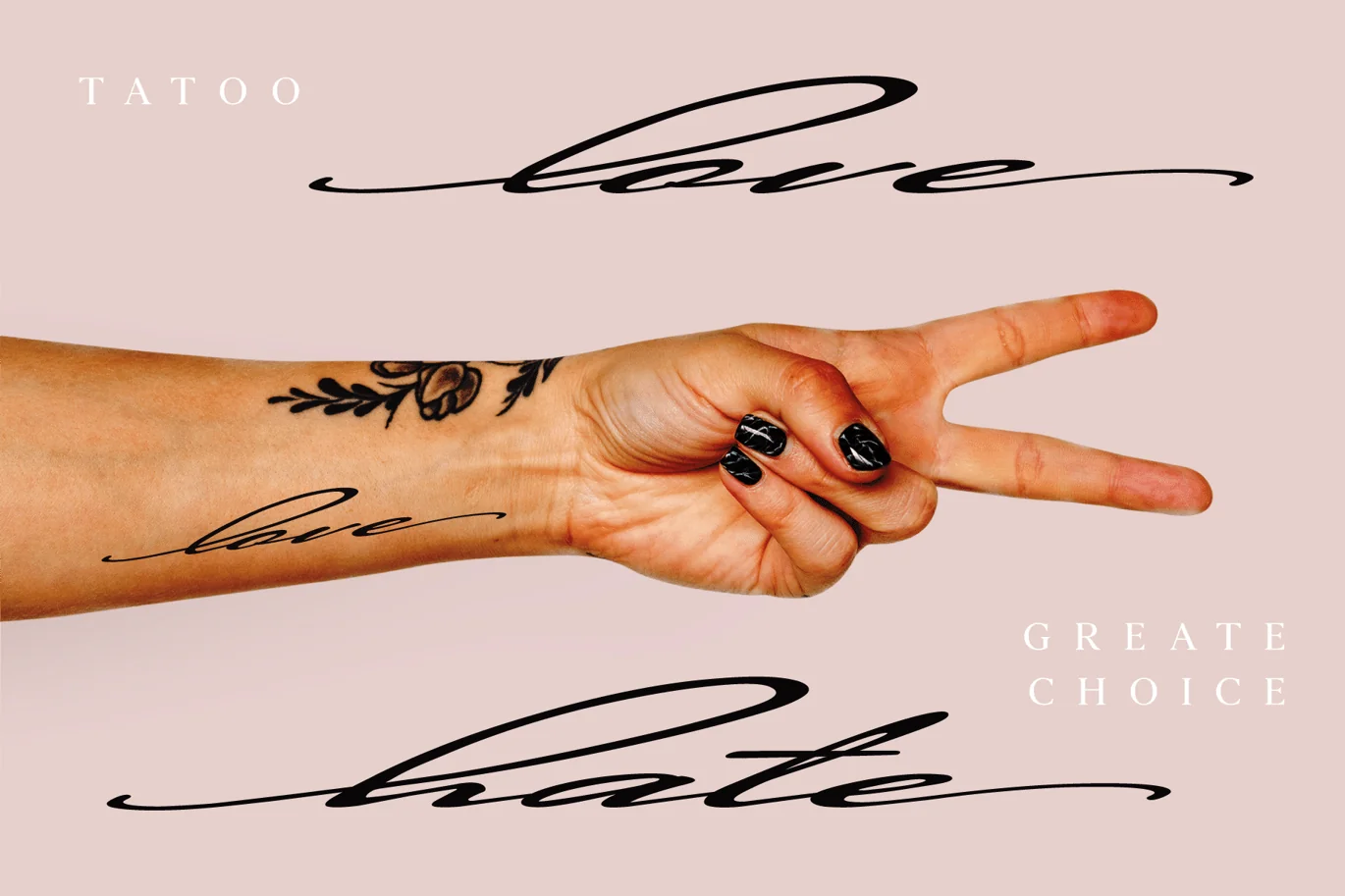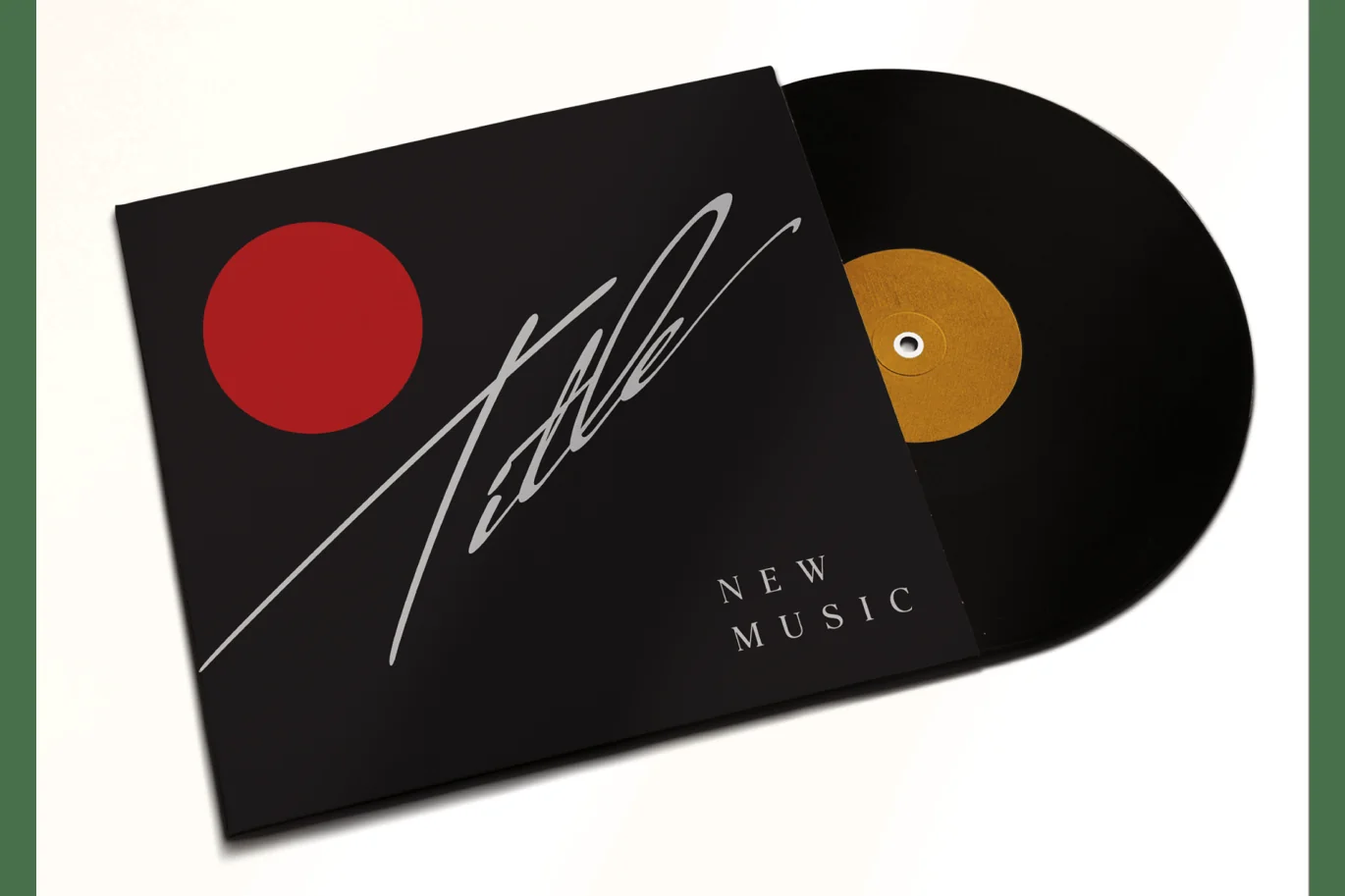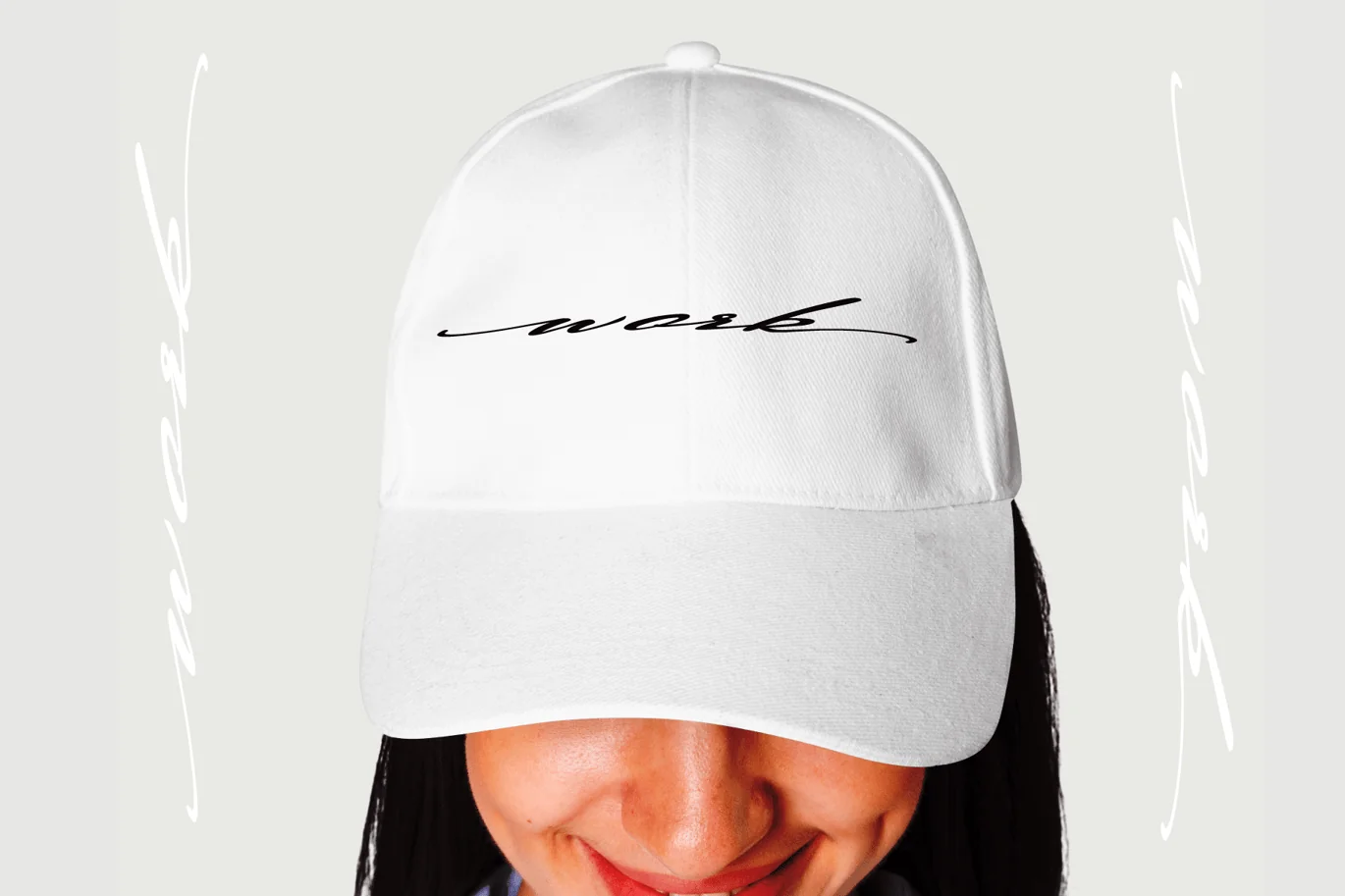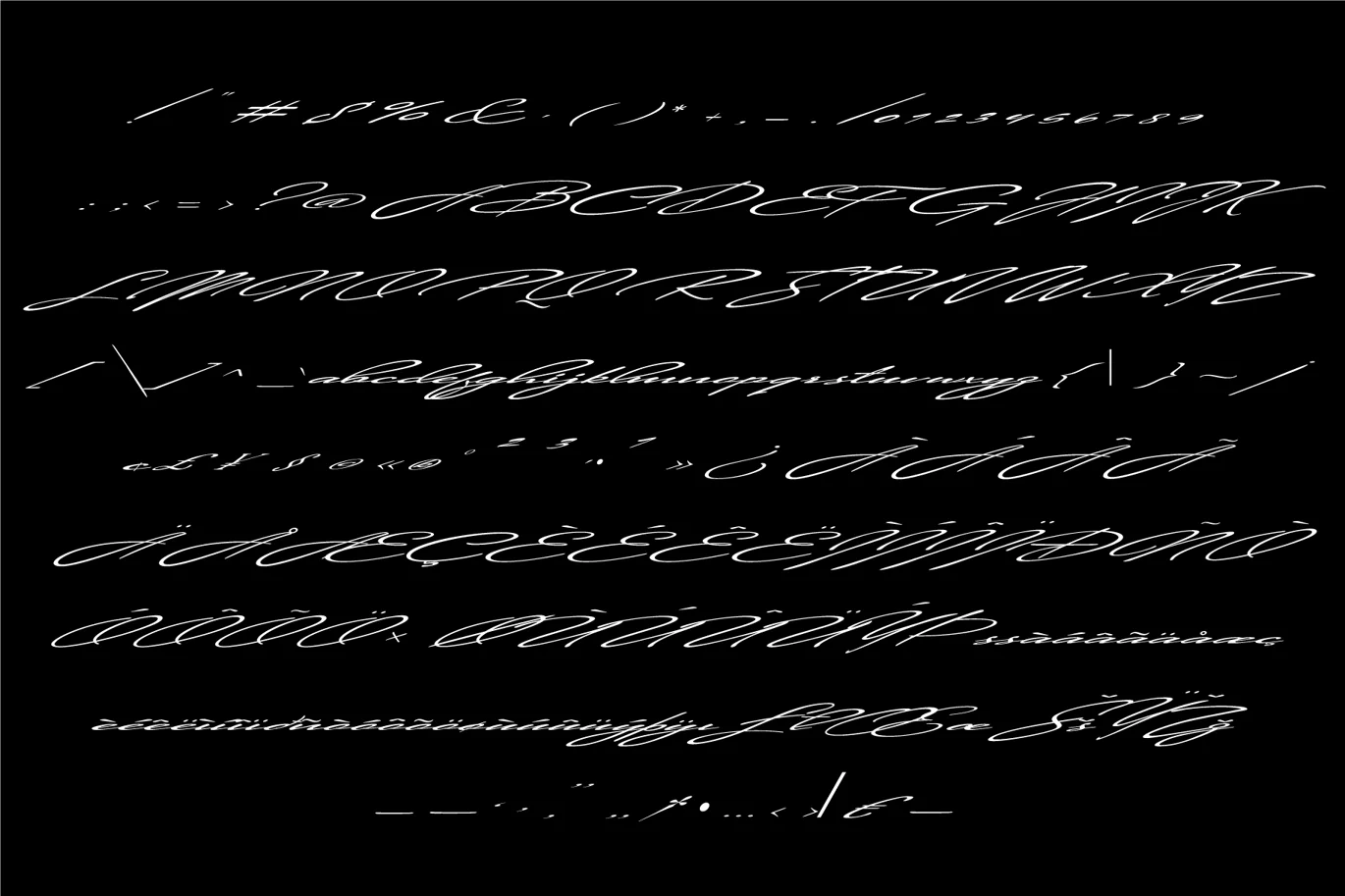
Olean Handwriting Font
Olean is a delicate and elegant font that would work well for titles, tattoos, and other creative projects.
Olean is a graceful and refined font that exudes sophistication and beauty. With its flowing curves and gentle angles, Olean is perfect for adding a touch of elegance to any project. Whether you’re creating a logo, designing a tattoo, or crafting a title for a piece of artwork, Olean is the perfect choice for achieving a delicate and stylish look.